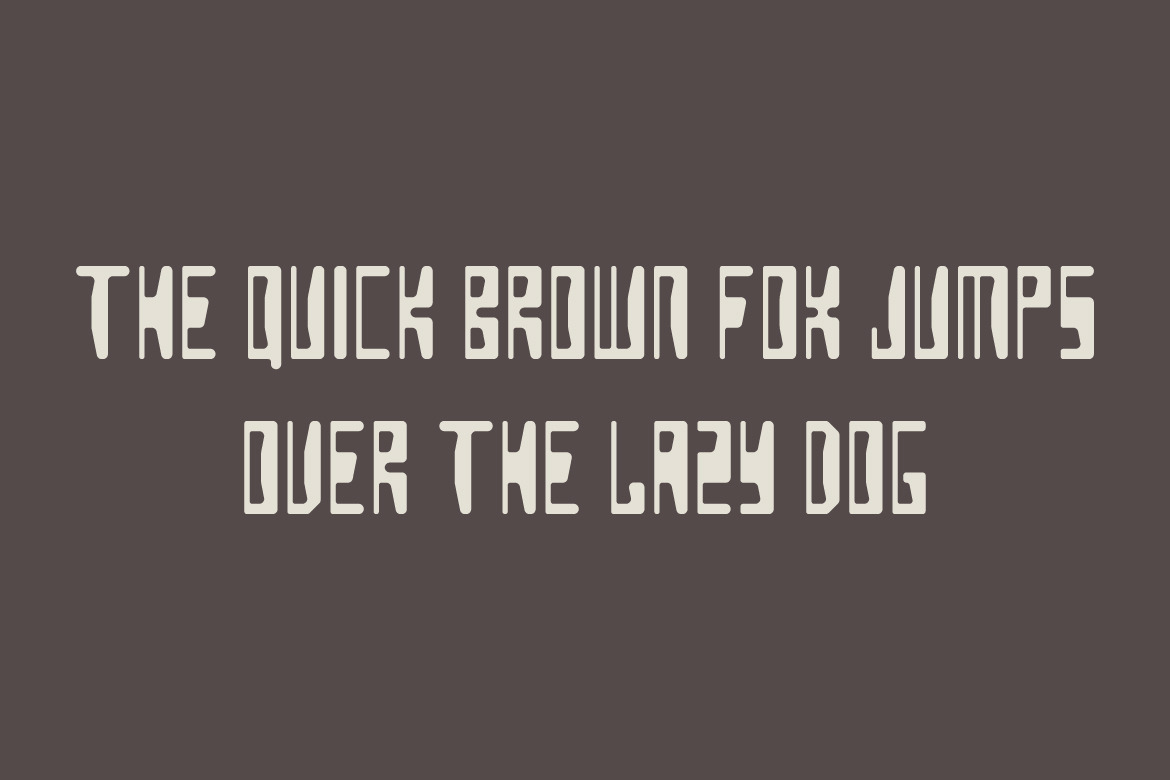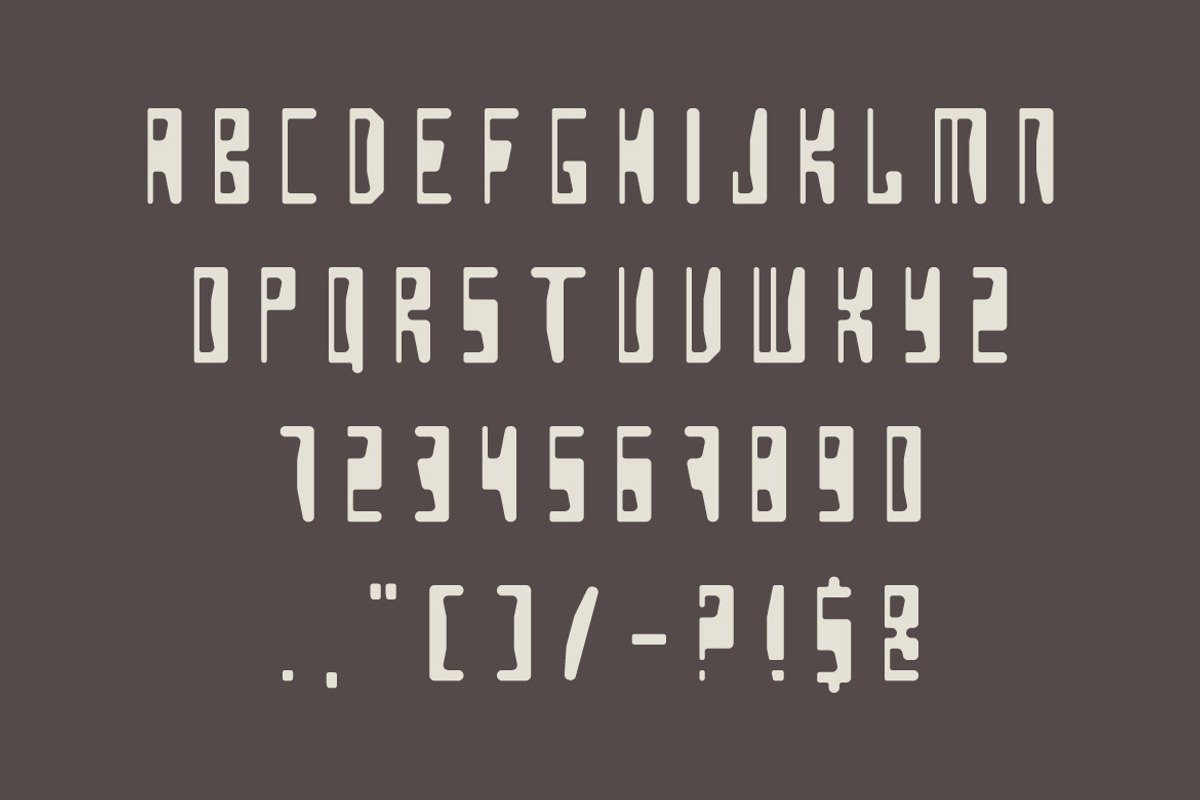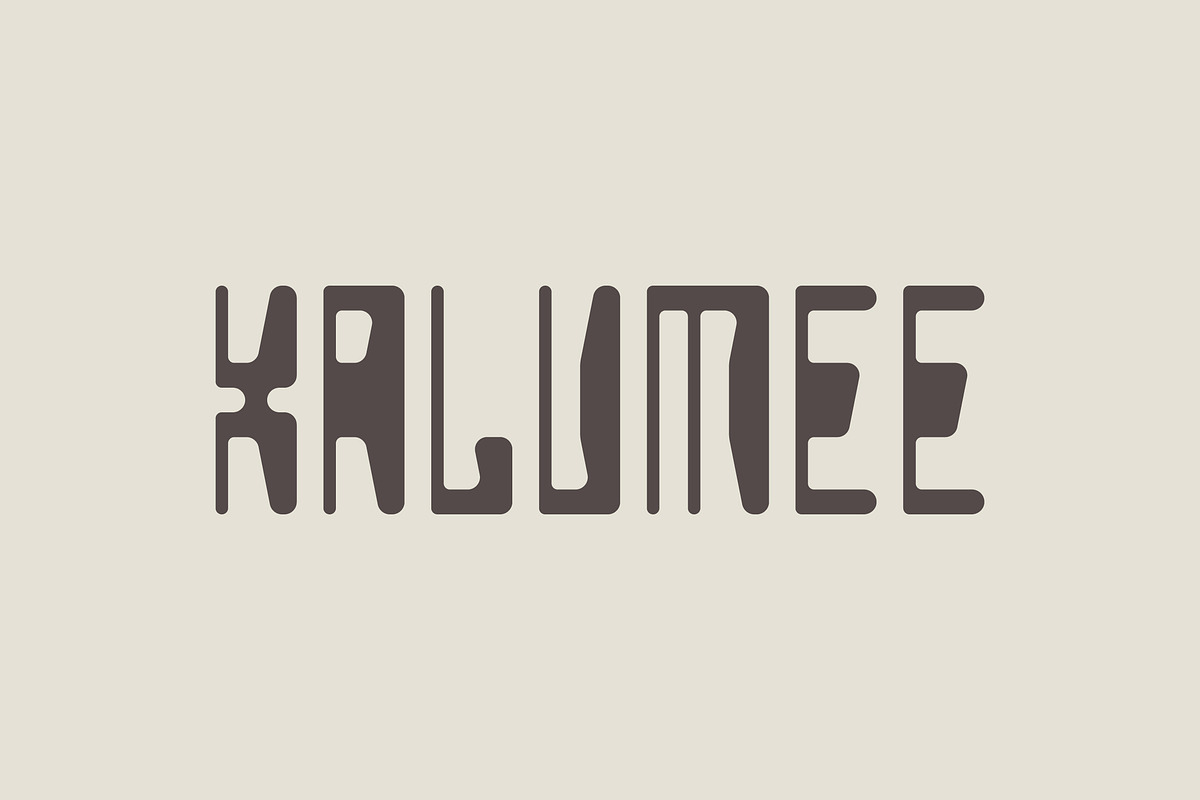
Xalumee -Logo Typeface
Xalumee is a modern and elegant logo typeface crafted for creating distinctive and memorable brand identities. Its clean lines and balanced design make it perfect for logos, branding, packaging, posters, and editorial layouts. Bring a refined and professional touch to your projects with Xalumee!